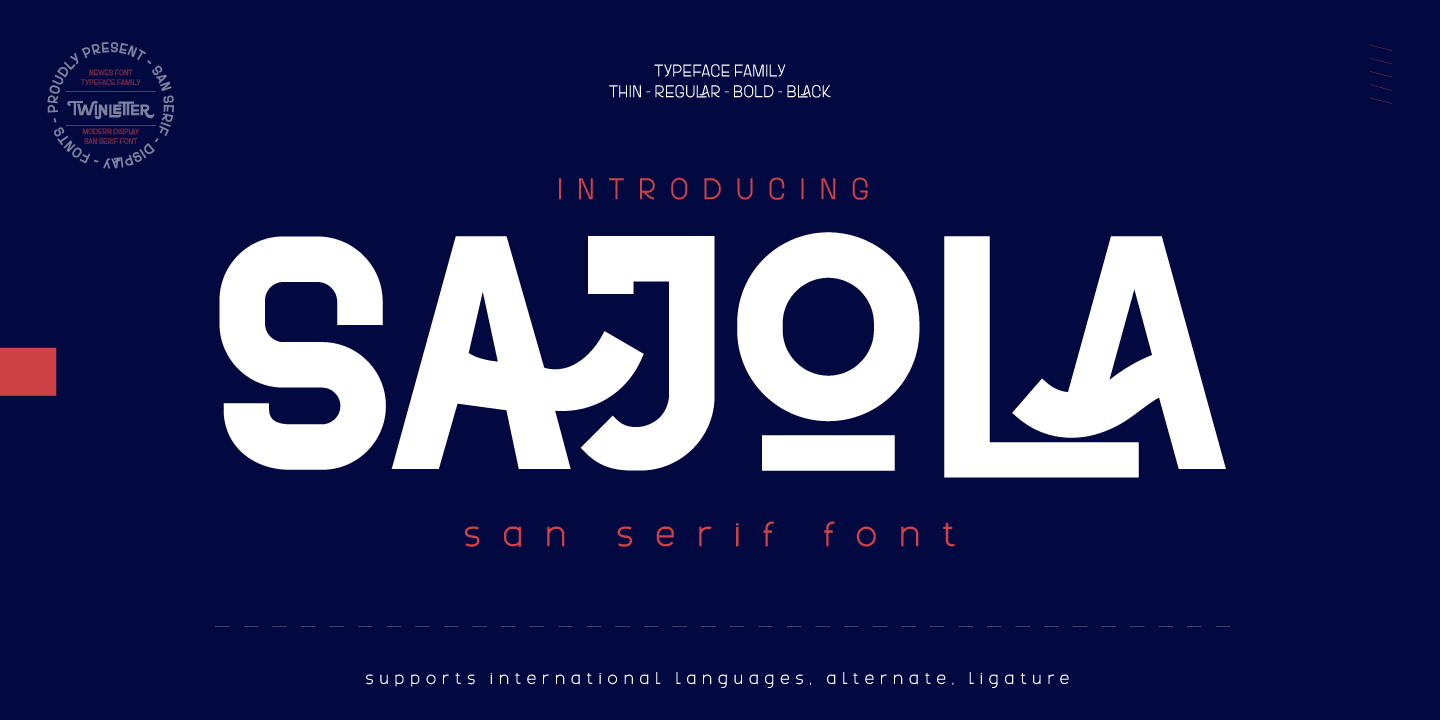
Sajola Font Free Download – Elegant and Versatile Typeface for Modern Projects
Looking for a font that combines elegance with versatility? Sajola Font Free Download is a refined typeface perfect for a wide range of design projects. Its clean lines and balanced shapes make it suitable for branding, editorial layouts, packaging, and digital content.
Sajola offers excellent readability and a timeless aesthetic that complements both formal and casual designs. Whether you’re creating logos, headlines, or body text, this font adds a polished and professional look to your work.
Enhance your typography with Sajola — a font that delivers elegance and flexibility in every character.